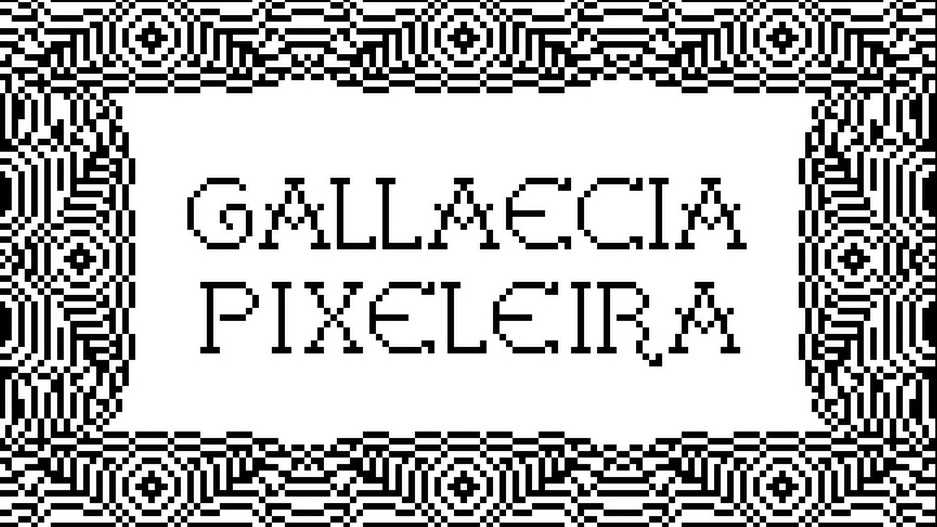
Download Gallaecia Pixeleira font, a decorative pixel display typeface inspired by Gallaecia Castelo font, originally designed by Carlos Nuñez.
Designer: David Calviño